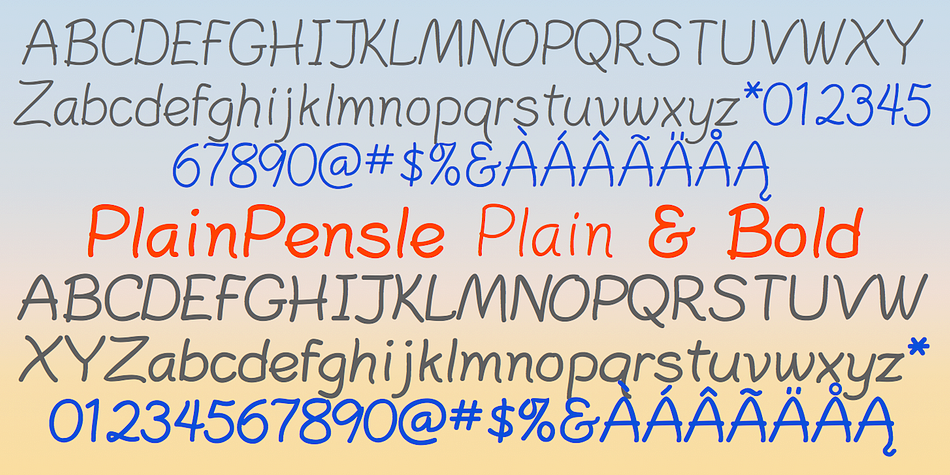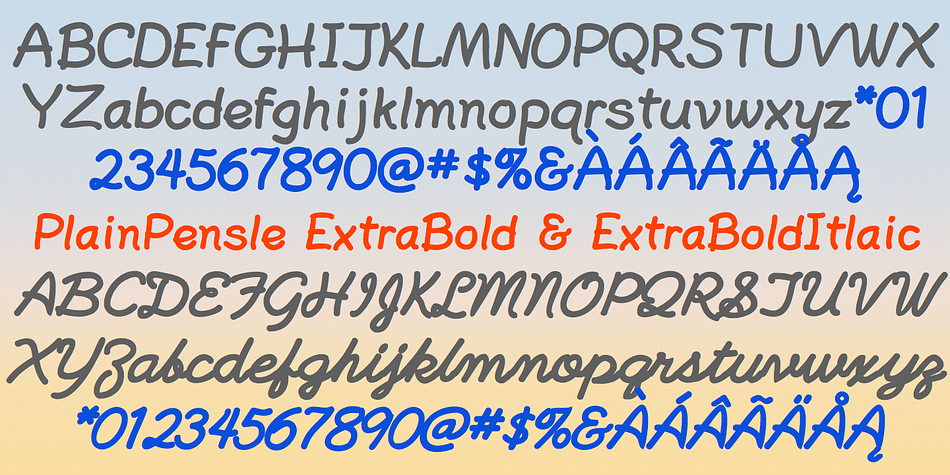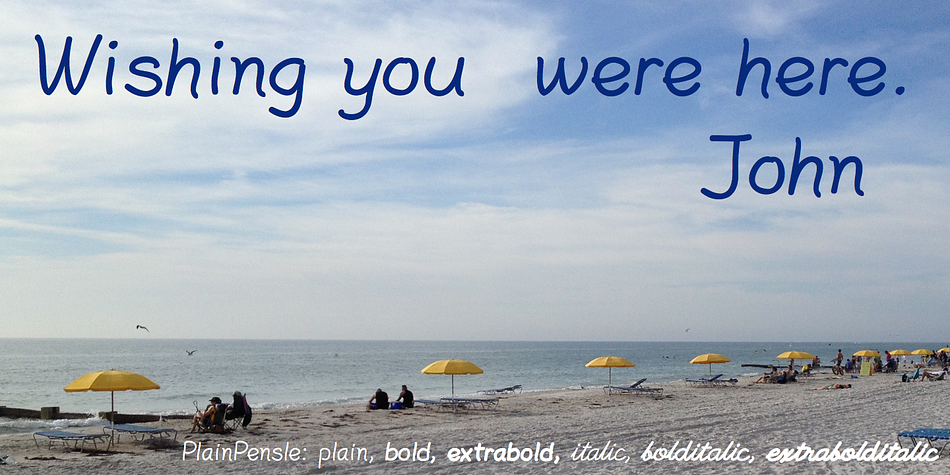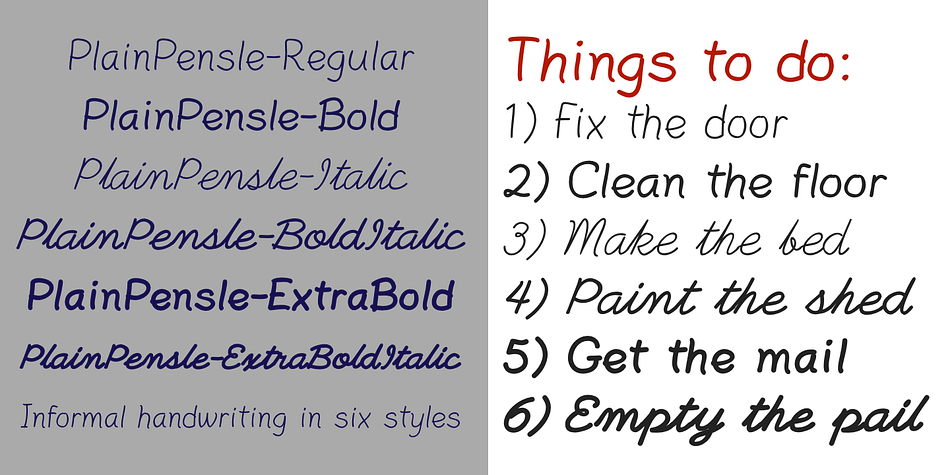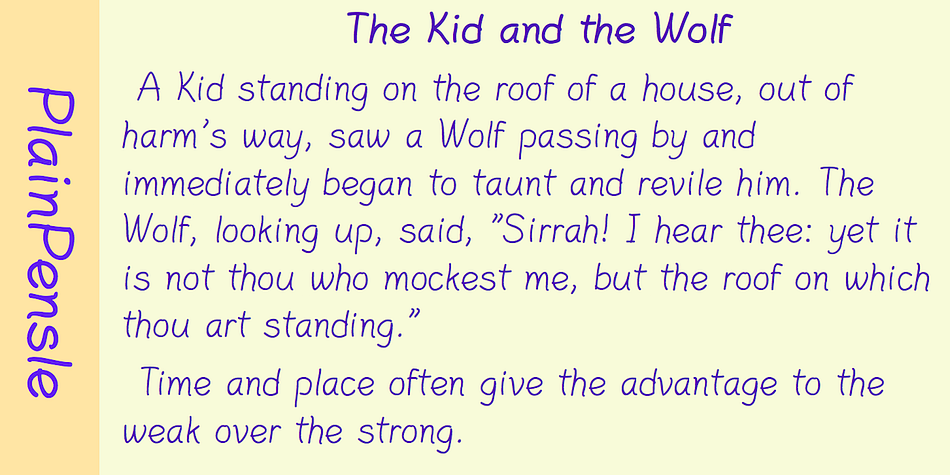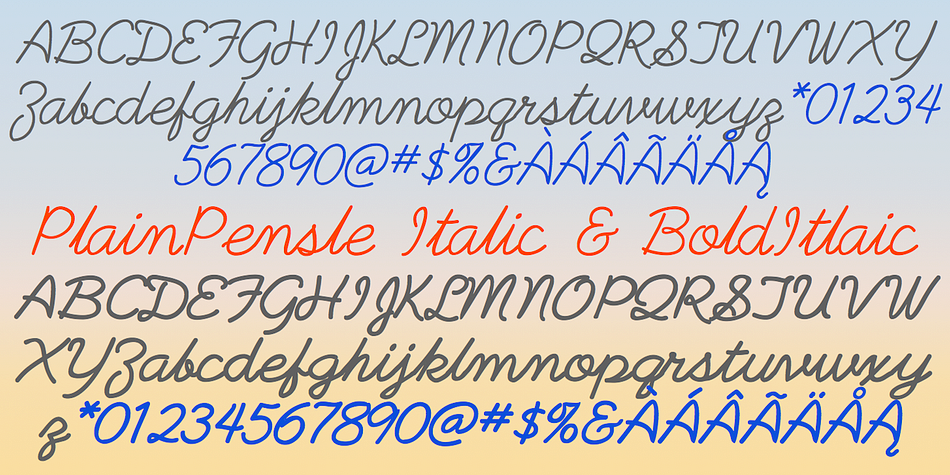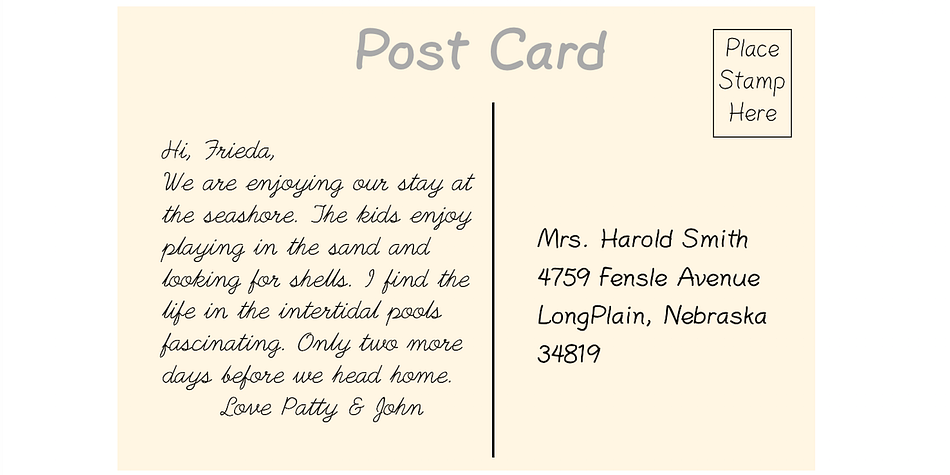
Designed by Robert Schenk, PlainPensle is a hand drawn font family. This typeface has six styles and was published by Ingrimayne Type.
As its name suggests, PlainPensle is a handwriting font that emulates printing and writing with a pencil or ballpoint pen. The plain and bold styles have hand printing that is ordinary and nondescript. The italics and bolditalics contain simple handwritten cursive.